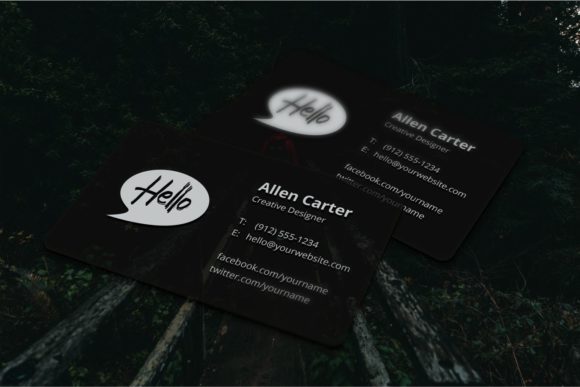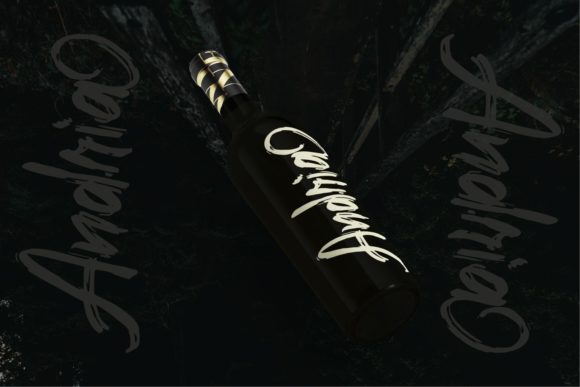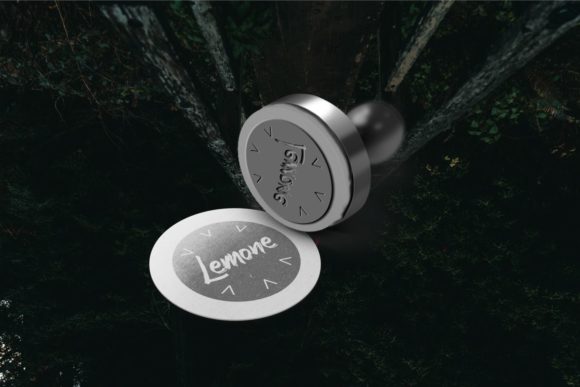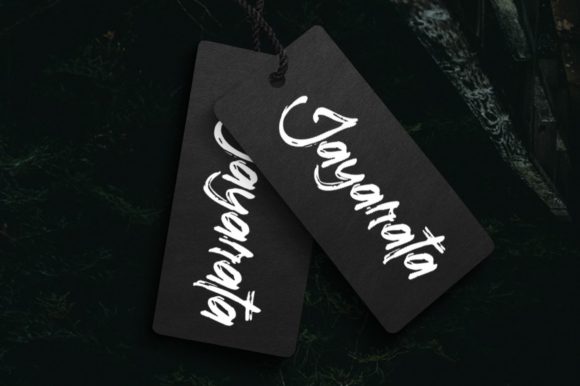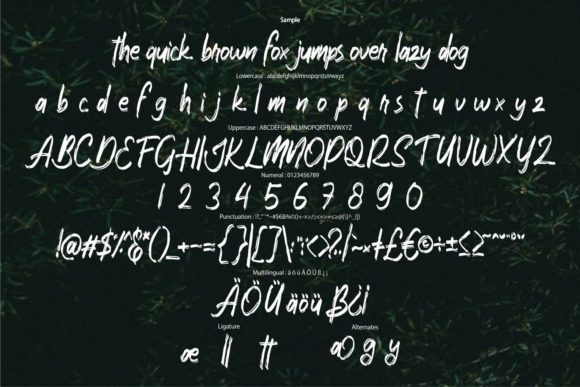
Introduction to Rakasta Font Font
Fonts play a crucial role in design, and the Rakasta Font font is a typeface that brings both character and versatility to any project. Whether you’re working on a branding project, a website, or a print design, the Rakasta Font font offers a unique style that can elevate your work.
Rakasta is a modern and brushed script font.
Whether youβre using it for crafting, digital designing, presentations or greeting cards making, itβs perfect .
Key Features of Rakasta Font Font
Why Choose Rakasta Font Font?
The Rakasta Font font is more than just a typeface β it’s a design tool that helps you communicate your message with style and clarity. Its unique character set and versatile design make it suitable for a wide range of applications, from elegant invitations to bold headlines.
With its carefully crafted letterforms and balanced proportions, the Rakasta Font font ensures readability and visual appeal across all mediums.
What makes Rakasta Font font special?
The Rakasta Font font stands out with its unique design, exceptional readability, and versatility across various design applications.